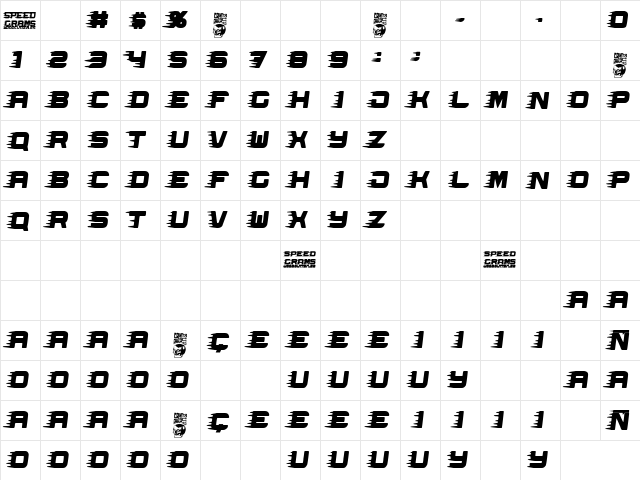
Speed Grams Regular
| Designer | Woodcutter Manero |
Design Context for Speed Grams Typeface
Speed Grams is a composed and adaptable typeface that performs quietly and consistently across a wide range of design contexts.